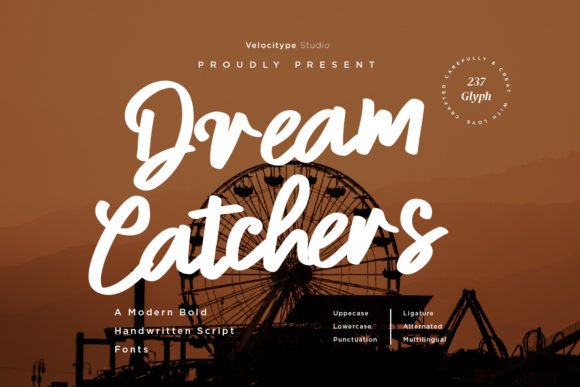
Journey into the realm of enchantment with Dream Catchers, a script font that weaves a spell of whimsy and imagination. Its fluid strokes dance across your designs, capturing the essence of dreams and the magic of fairy tales. The unique charm of Dream Catchers transforms your words into captivating works of lyrical beauty.
With its contemporary aesthetic and effortless style, Dream Catchers is a font that captures the essence of romance and creativity. As versatile as it is captivating, it seamlessly blends the elegance of calligraphy with the playful charm of handwritten script. Whether you're designing wedding invitations, creating captivating social media graphics, or adding a touch of magic to your branding, Dream Catchers casts its spell, enchanting your viewers.
Embrace the artistry of Dream Catchers and witness your designs blossom into masterpieces. Let your dreams take flight as this enchanting font carries your words to new heights of creativity. Your designs will radiate a touch of the extraordinary, leaving an imprint on your audience that lingers in their hearts and minds. Dream Catchers is not just a font; it is a portal to a world of imagination where your designs soar on the wings of enchantment.
So, let your creative spirit soar, explore the boundless possibilities of Dream Catchers, and weave your own tapestry of dreams and desires. Transform your designs into captivating expressions of your imagination with Dream Catchers, a font that captures the essence of whimsy and magic. Let your dreams blossom into reality as you create designs that resonate with hearts and inspire souls.